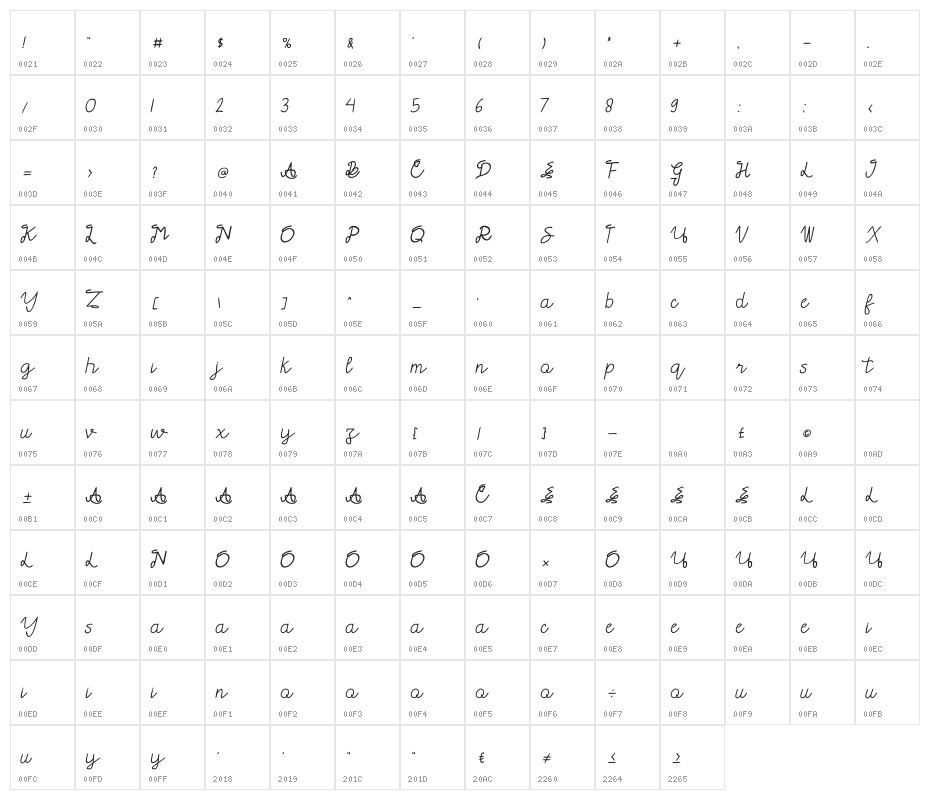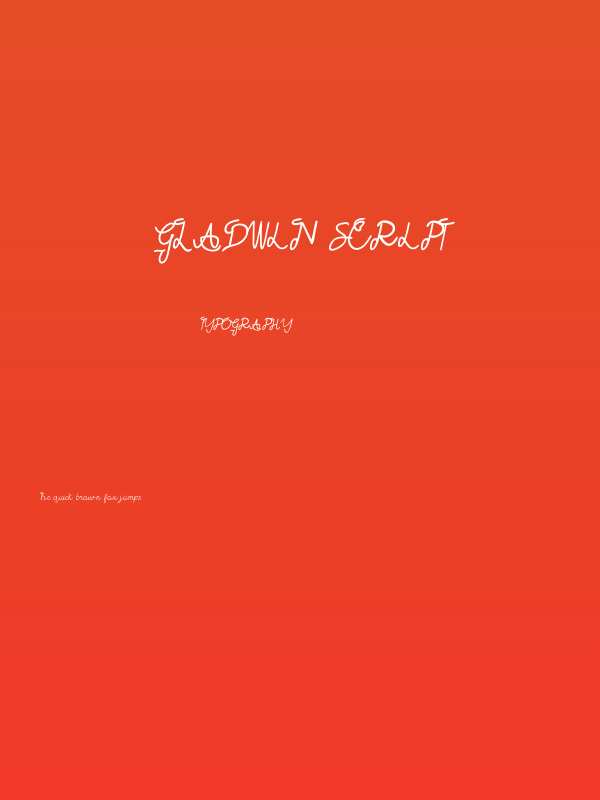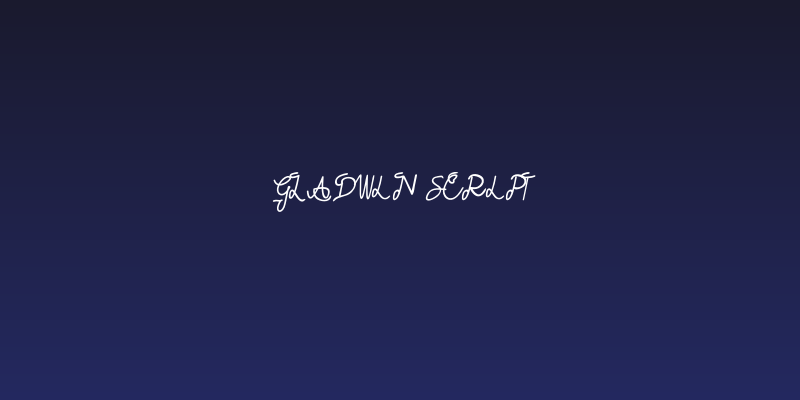
GLADWIN Script Font
GLADWIN Script Description
This elegant script font features a fluid and graceful design, characterized by its smooth, flowing strokes and cursive style. The uppercase letters exhibit a sophisticated flair with intricate loops and swirls, while the lowercase letters maintain a consistent, connected appearance that enhances readability. The numerals and special characters are crafted with the same attention to detail, ensuring a cohesive look throughout. This font exudes a sense of elegance and charm, making it ideal for projects that require a touch of sophistication.
| Overall Style | Elegant |
| Use Case | Logos, Invitations, Decorative text |
| Proposed Projects | Ideal for wedding invitations, greeting cards, elegant branding, and personal stationery. |